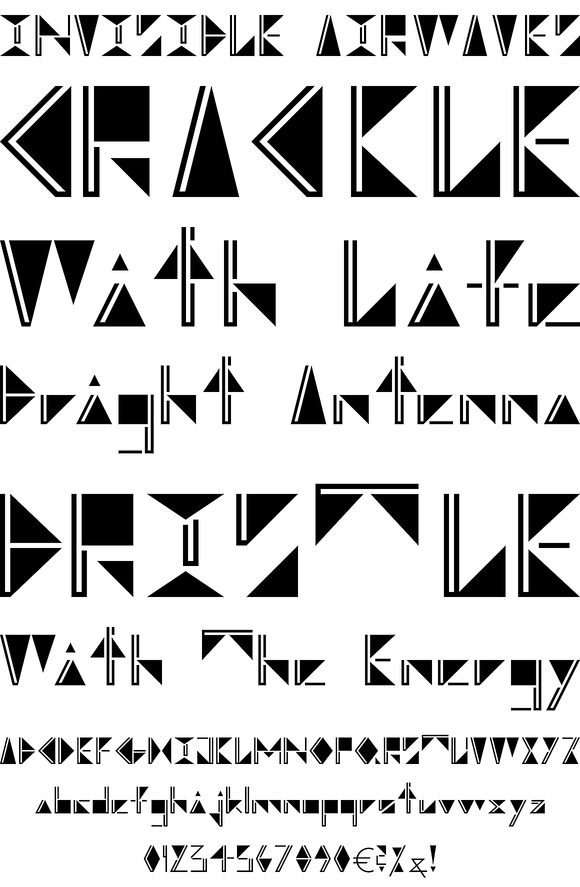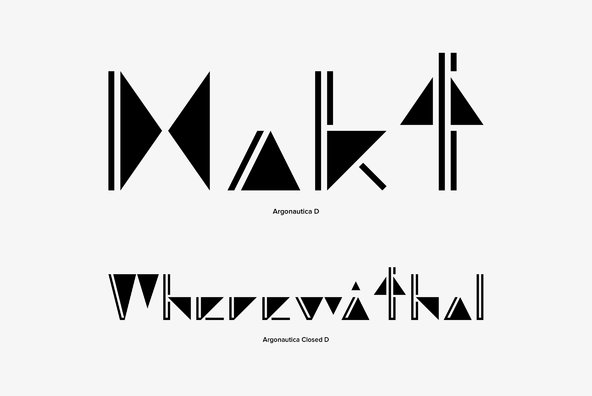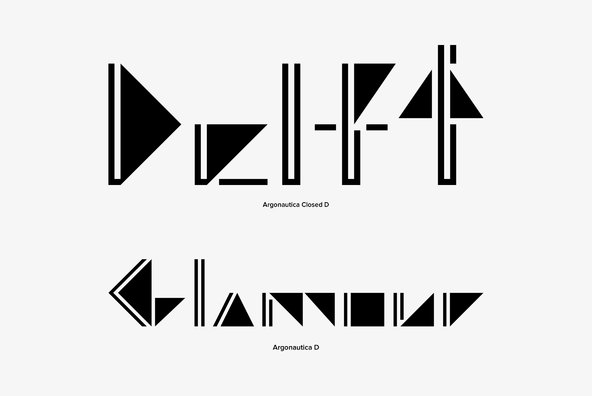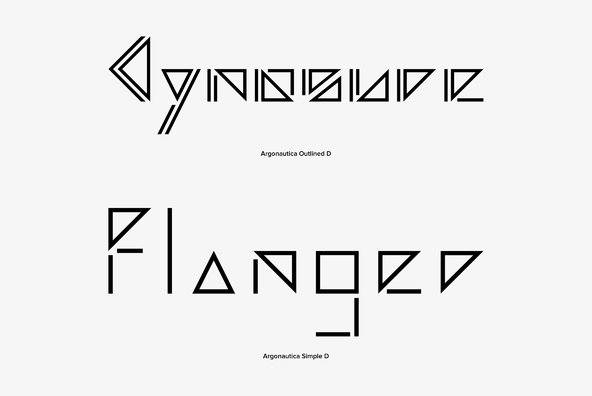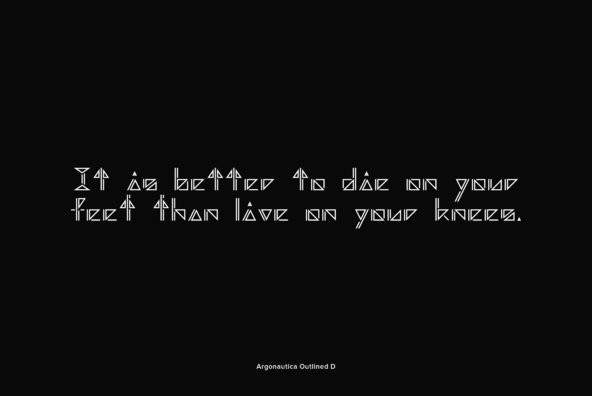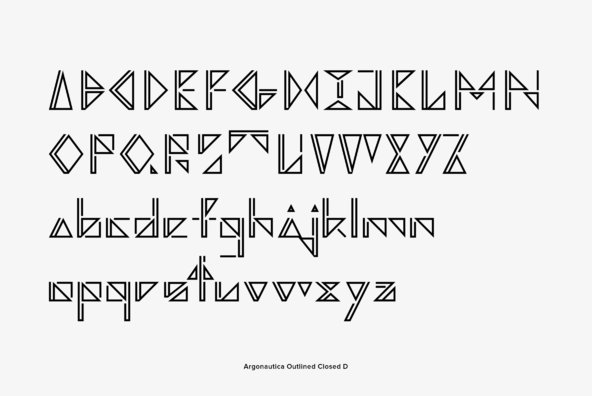
Argonautica
Argonautica is based on a relict of the future that was left on earth by time-travelling extra-terrestrials. In 1947, an UFO crashed in the New Mexico desert. There were unknown glyphs found on the spaceship which couldn't be deciphered to date. Based on one of the unknown glyphs, Gabriele Lindemann developed a complete alphabet readable for human beings. Argonautica is particularly suited for colored typography and can be read much better with growing distance.